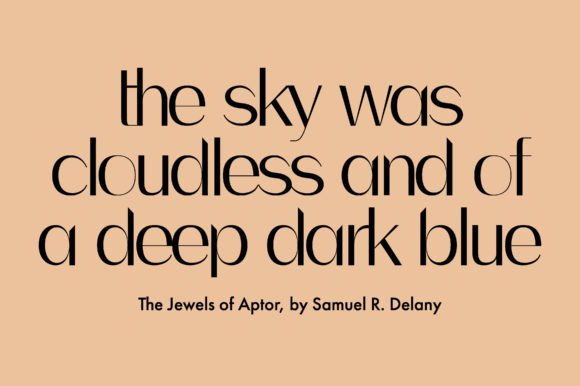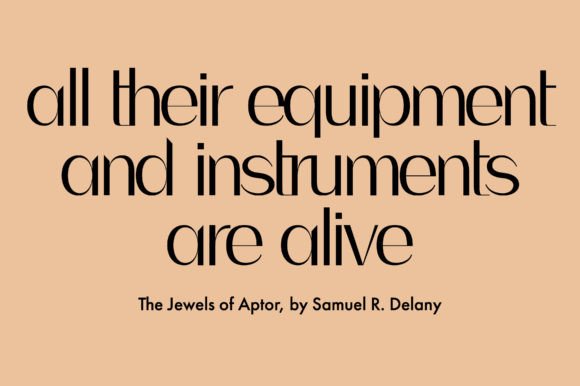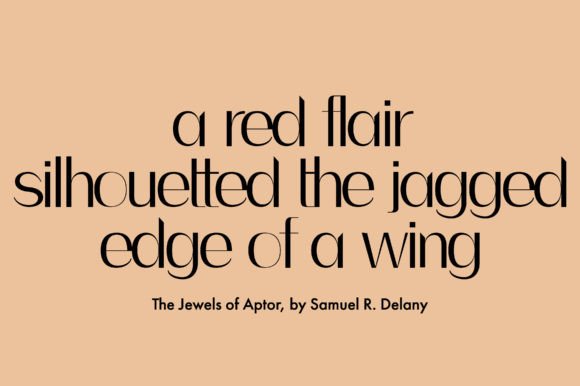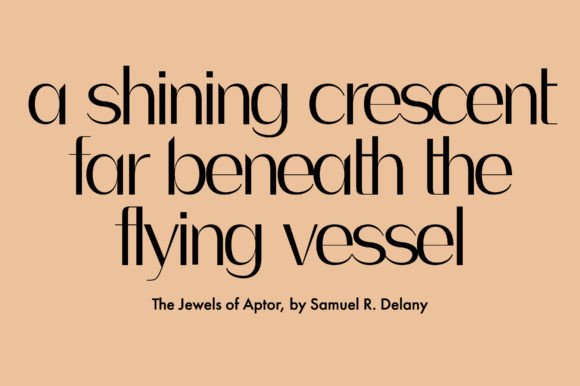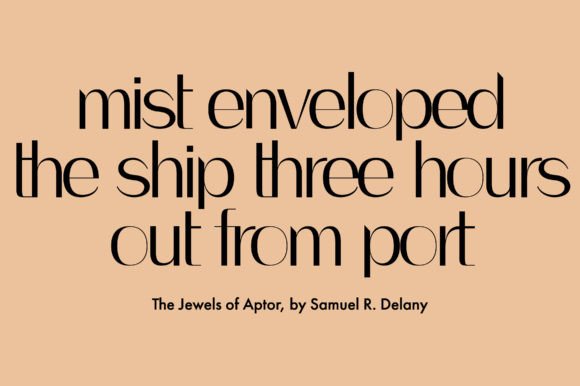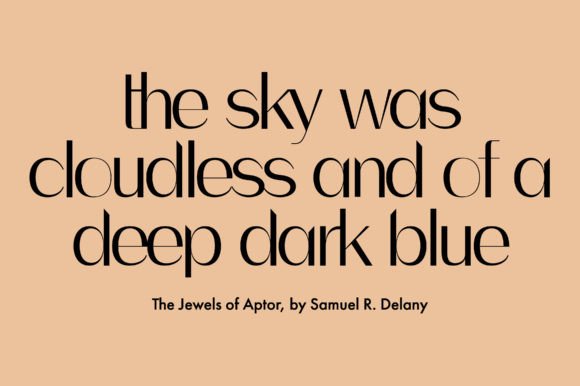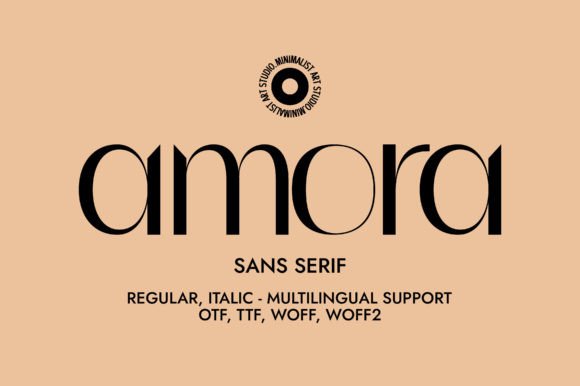
Introducing Amora Font: The Epitome of Simplicity and Elegance
In the realm of typography, few typefaces manage to strike a balance between simplicity and elegance as effortlessly as Amora Font. This stunning sans-serif typeface has been meticulously crafted to offer a minimalist yet sophisticated look that elevates any design project. Whether you’re a seasoned designer or a crafty individual, Amora Font is poised to become your go-to choice for creating visually appealing and impactful designs.
The Design Philosophy Behind Amora
Amora Font is the brainchild of designers who sought to create a typeface that embodies the essence of modern simplicity. With clean lines, graceful curves, and a minimalist approach, Amora exudes a sense of refinement and sophistication. Its design is not just about aesthetics; it’s also about functionality. The typeface is crafted to be easy on the eyes, making it perfect for both digital and print materials.
Key Features of Amora Font
- Clean and Modern Design: Amora boasts a sleek and contemporary look that is sure to make your designs stand out.
- Minimalist Approach: With its simple and uncluttered design, Amora lends a sense of elegance to any project.
- Versatility: This typeface is incredibly versatile, making it suitable for a wide range of design projects, from logos and branding materials to websites and print publications.
- Timeless Appeal: Unlike trendy typefaces that quickly go out of style, Amora’s design is timeless, ensuring that your designs remain relevant for years to come.
Why Choose Amora Font?
For businesses and individuals looking to make a bold statement with their branding, Amora Font is the ideal choice. Its striking yet minimalist appearance ensures that your designs are not only visually appealing but also memorable. Moreover, the typeface’s versatility means you can use it across various platforms and materials, ensuring consistency in your brand’s visual identity.
Using Amora in Your Design Projects
- Pair it with Other Typefaces: While Amora is stunning on its own, it can also be paired with other typefaces to create interesting visual hierarchies.
- Experiment with Colors: The neutral design of Amora allows it to complement a wide range of colors, so don’t be afraid to experiment and find the perfect combination for your brand.
- Consider Font Sizes: Amora’s clean design ensures it remains legible at various sizes, making it perfect for both headings and body text.
Amora Font represents a perfect blend of simplicity, elegance, and functionality. Its clean and modern design makes it an excellent choice for designers and crafters looking to add a touch of sophistication to their projects. With its versatility, timeless appeal, and ease of use, Amora is set to become a favorite among typography enthusiasts. So, why wait? Try Amora Font today and witness the transformative power of minimalist design in your projects.